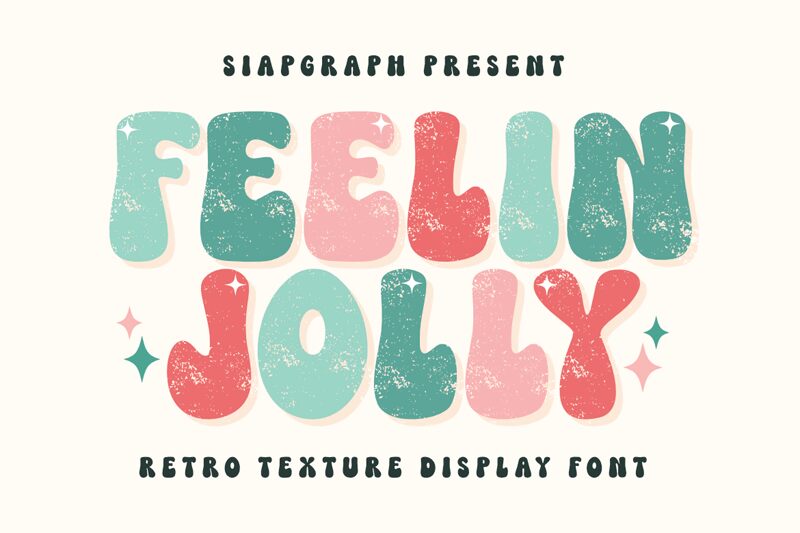
Feelin Jolly font by Siapgraph is a free groovy font inspired by the 1960s and 1970s. This bubbly typeface brings back the vibrant and cheerful spirit of the funky, crazy, and playful days that are nostalgic for some, and an inspiration for others. Its textured look and bold presence make it suitable for short headlines, titles, and branding purposes. The informal and whimsical character of Feelin Jolly is great for relaxing and non-stressful applications with no troubled moods.
This font is a great choice for playful brand logos, packaging design, casual photo captions, stickers, labels, signages, and posters. You can also use it for greeting and invitation cards, T-shirt designs, and magazine covers and headings. Mix the typeface with colorful backgrounds and icons for an overall cheerful and playful presentation.